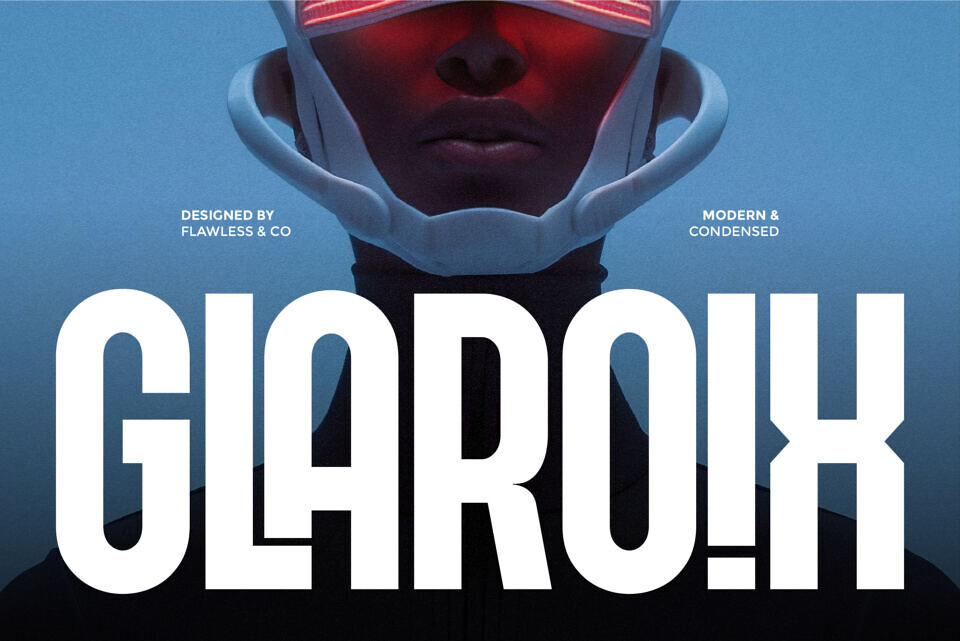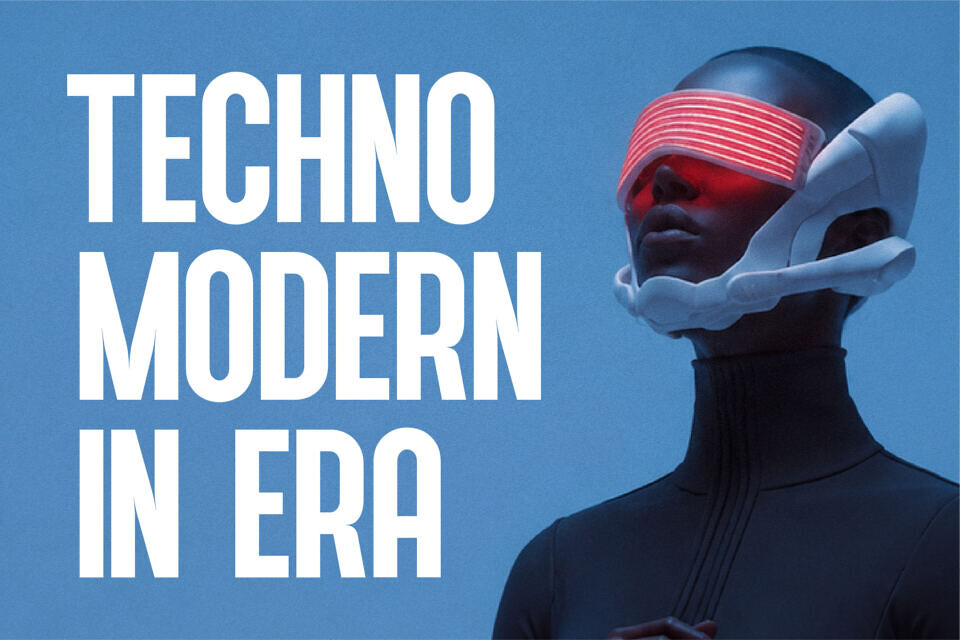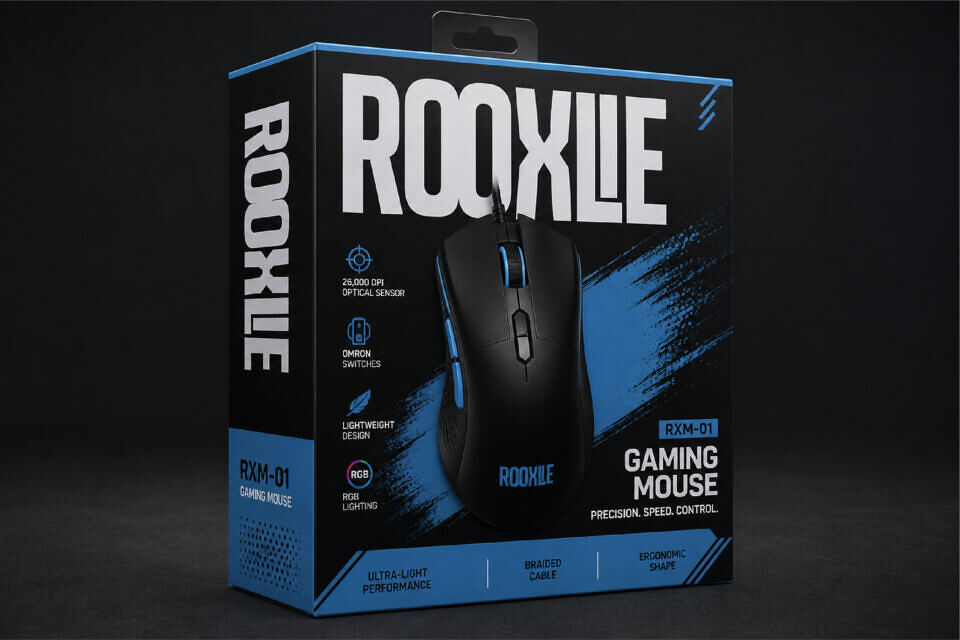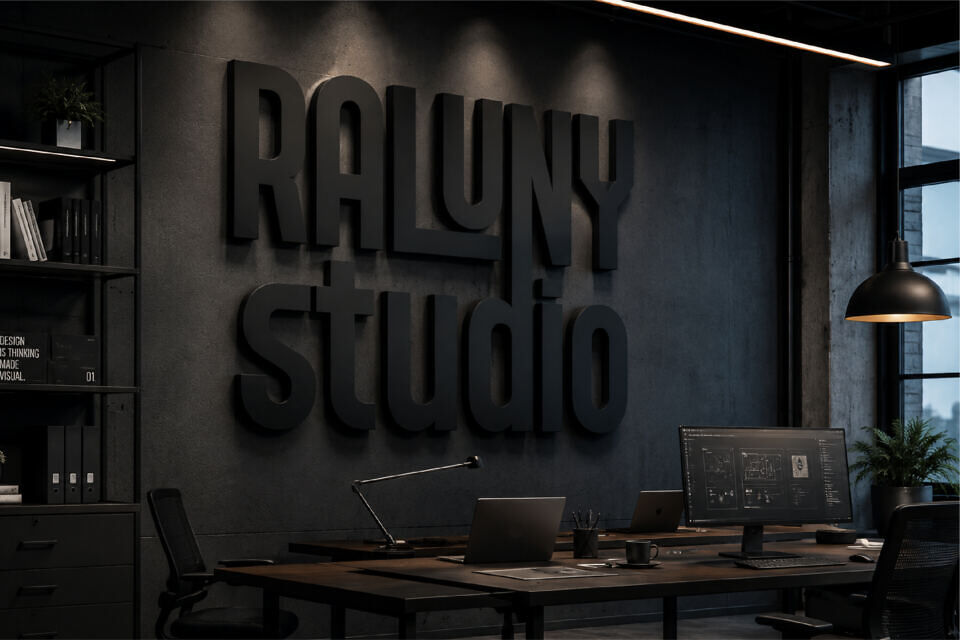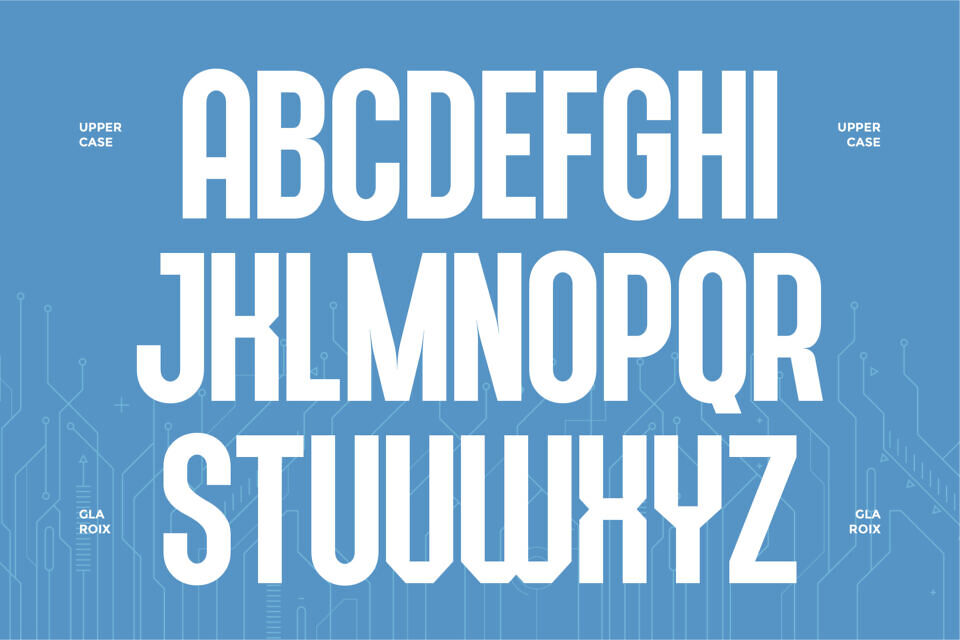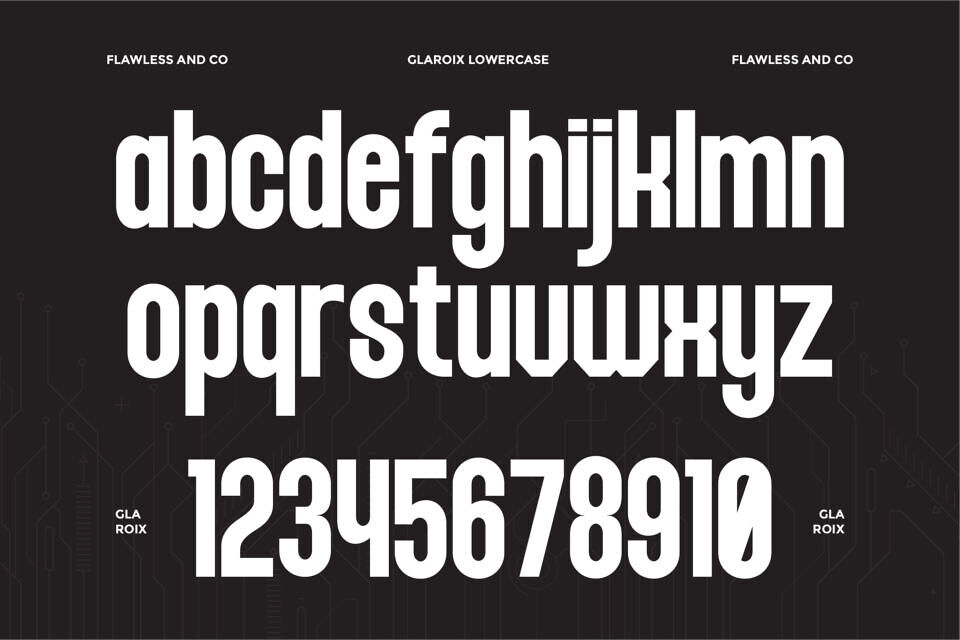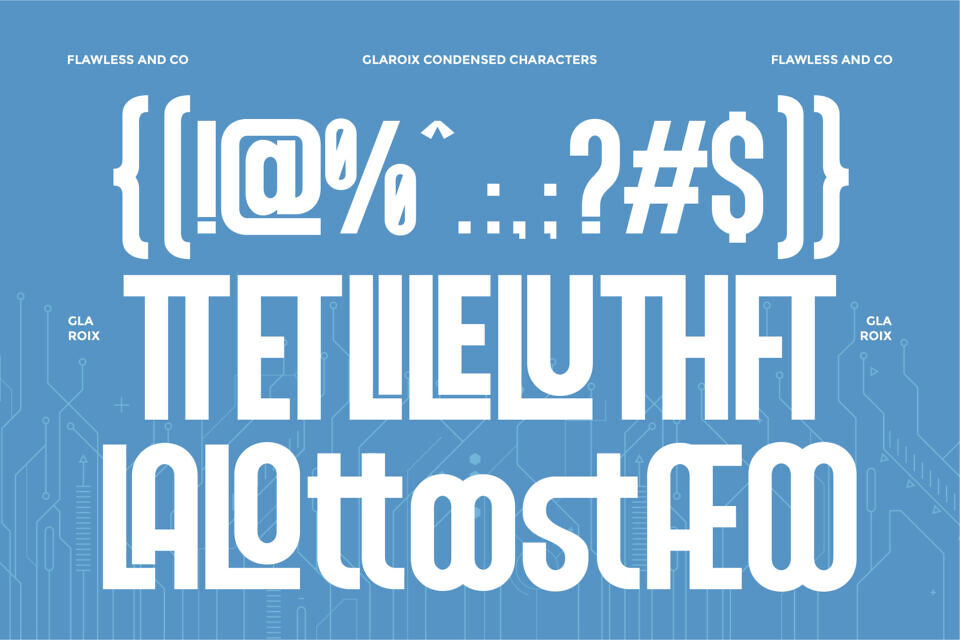
Glaroix Font
Glaroix is a modern condensed sans font crafted for designers who need typography that feels modern, powerful, and efficient.
With its narrow proportions, clean construction, and balanced geometry, Glaroix delivers a strong visual presence while maintaining a refined and professional appearance. Its condensed design allows more content to fit within limited space, making it an excellent choice for impactful headlines and modern branding.